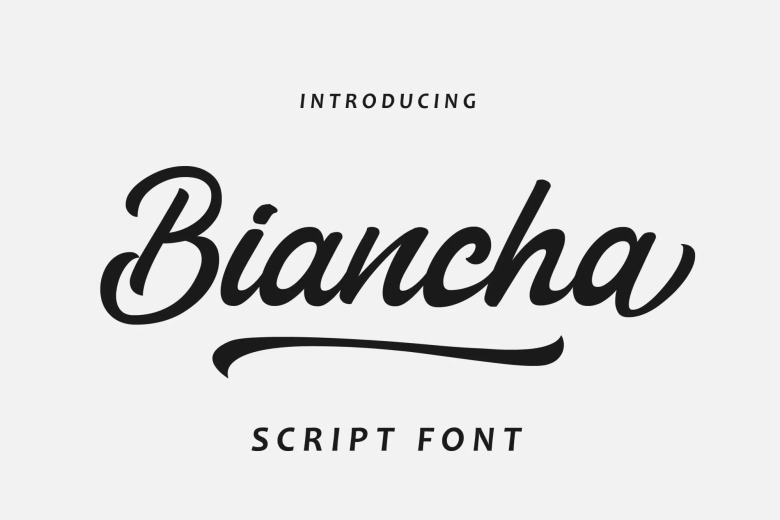
Biancha Font
Biancha is a beautiful handwritten font expertly crafted to become a true favorite. This font is suitable for many design projects such as invitations, greeting cards, design projects, and more.
Biancha Script Font